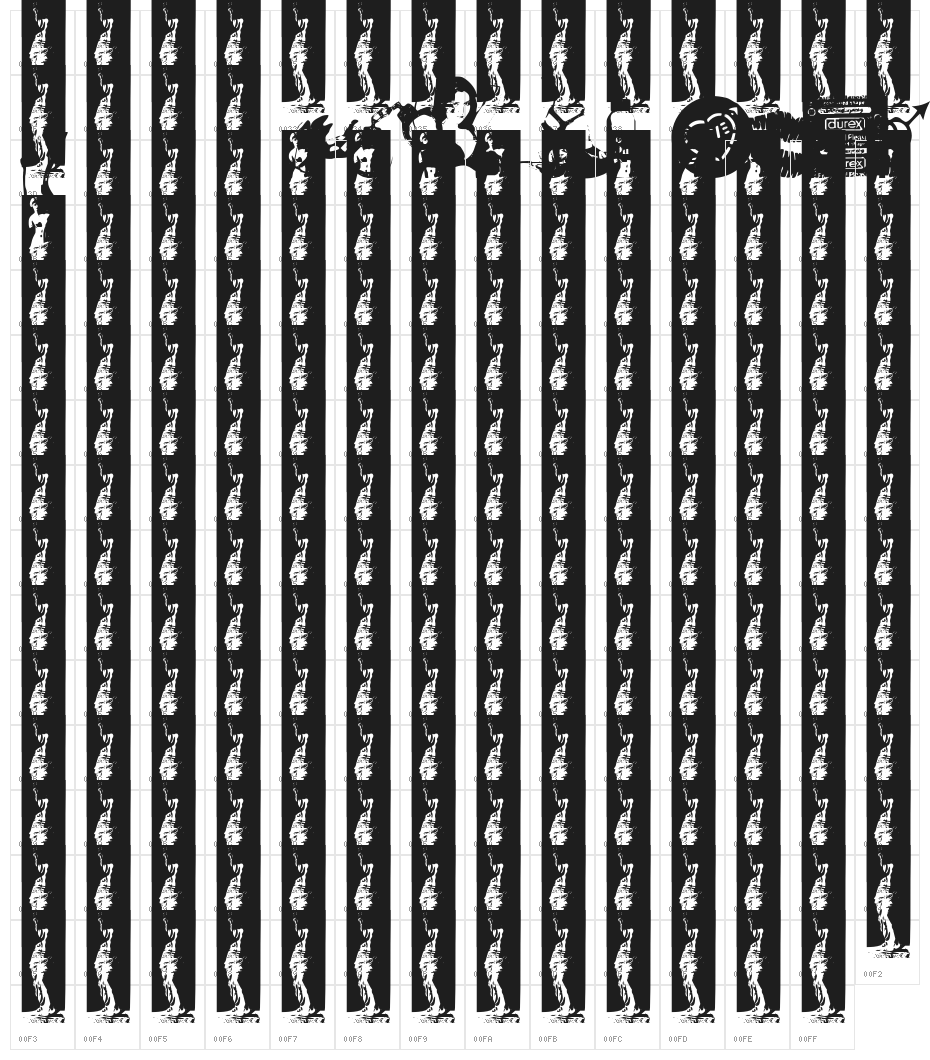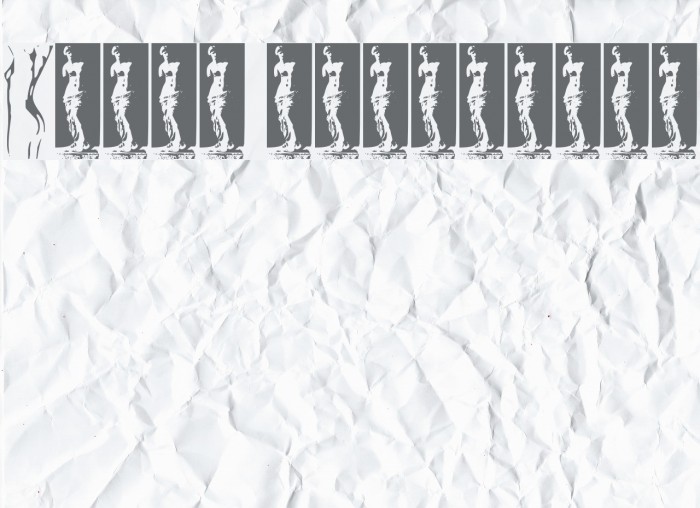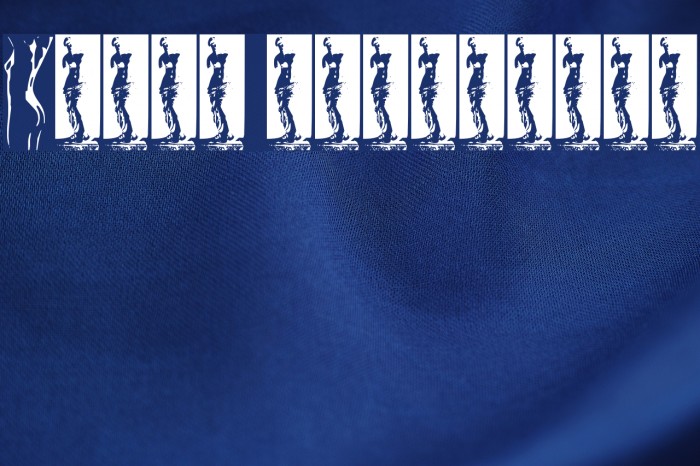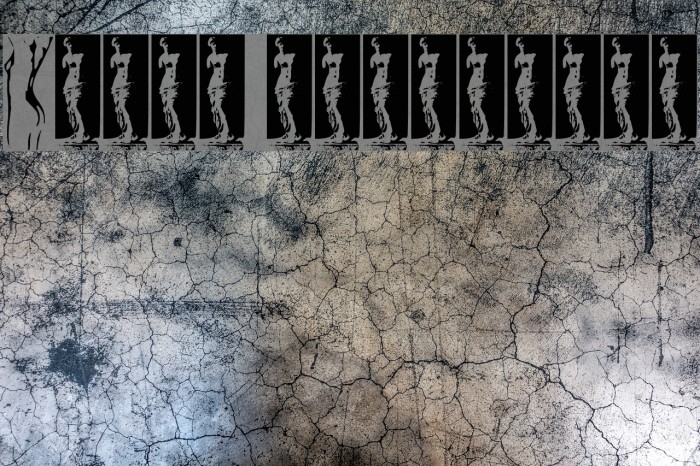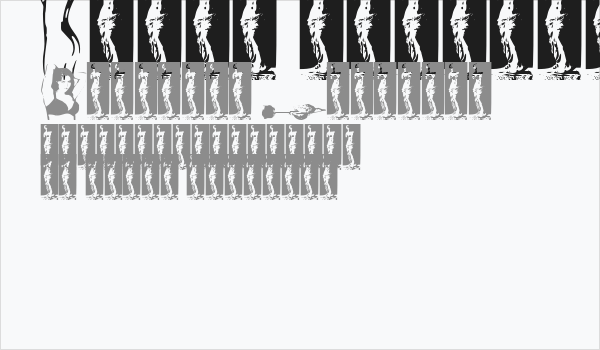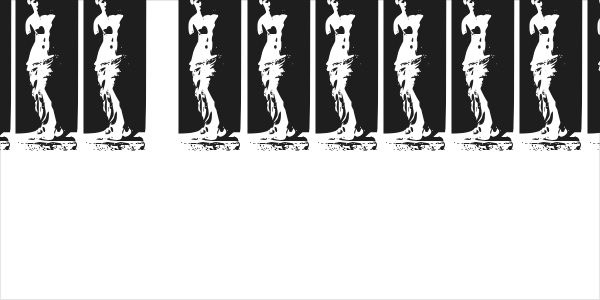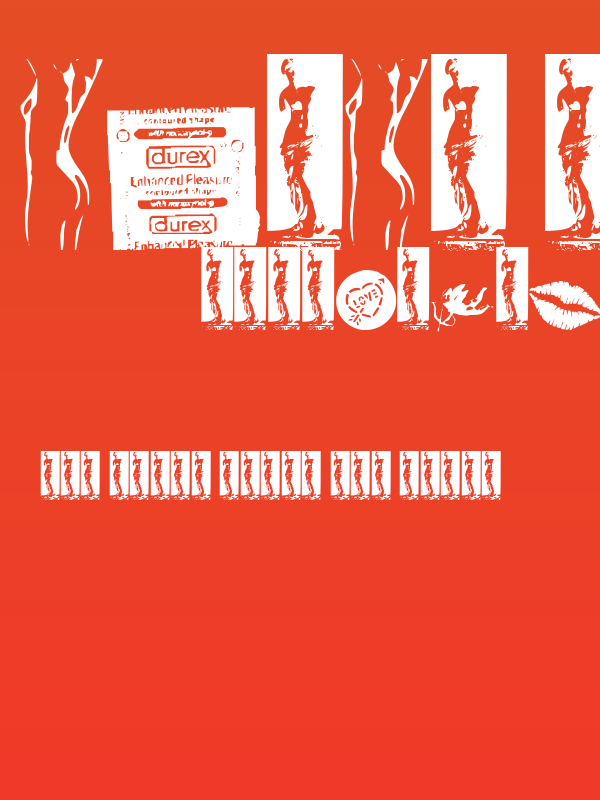
Kinky Valentine Font
Kinky Valentine Description
A highly decorative and playful display font featuring provocative, erotic, and fetish-themed imagery as letterforms and symbols, rendered in bold black-and-white silhouettes with strong contrast and suggestive motifs.
| Overall Style | Decorative, Erotic, Playful |
| Use Case | Headlines, Logos, Posters, Themed Graphics |
| Proposed Projects | Adult event posters, nightclub flyers, provocative branding, themed party invitations, novelty merchandise. |